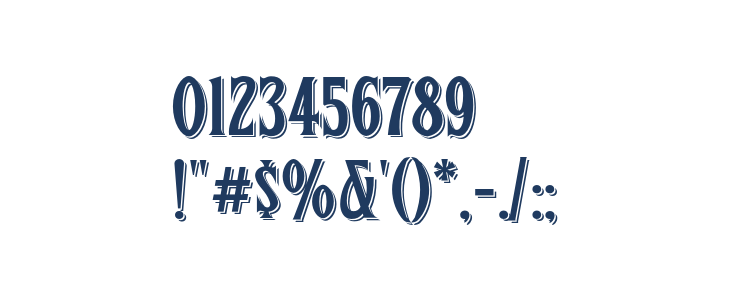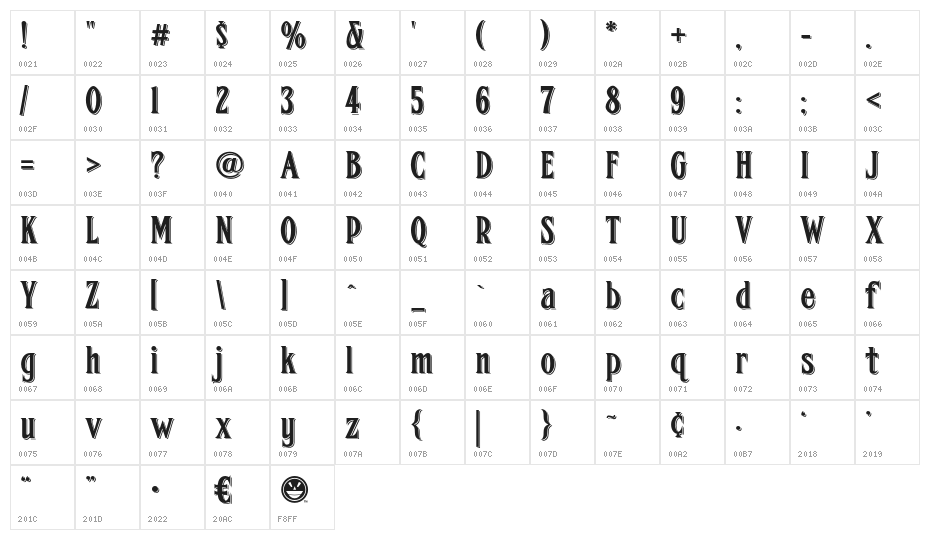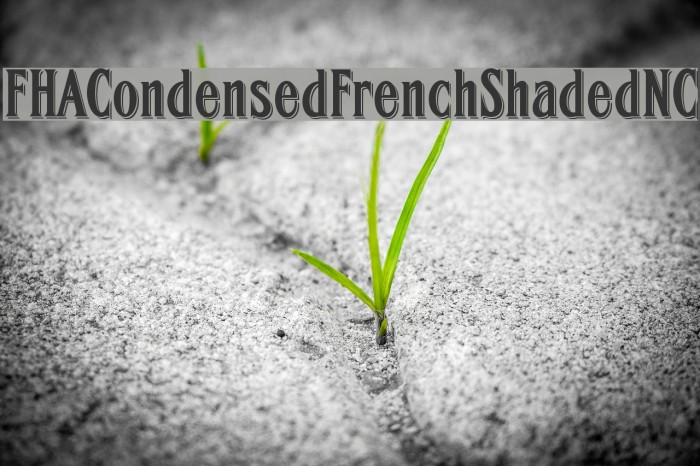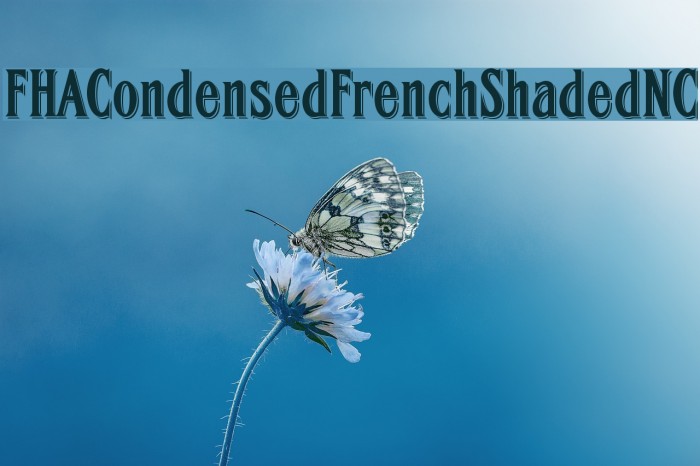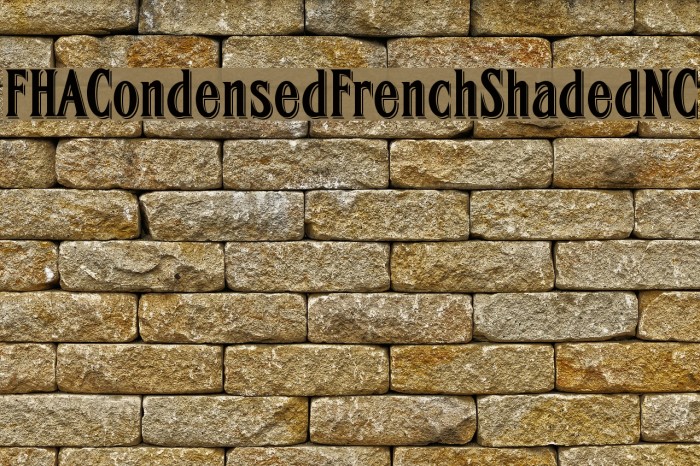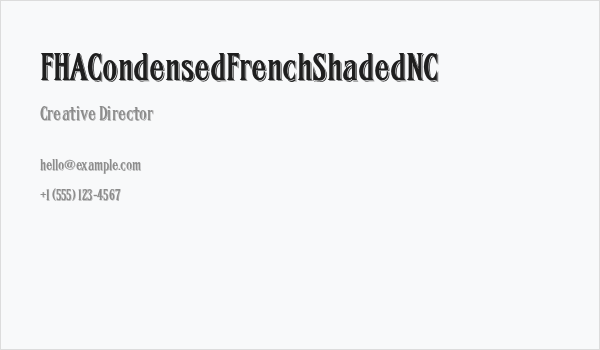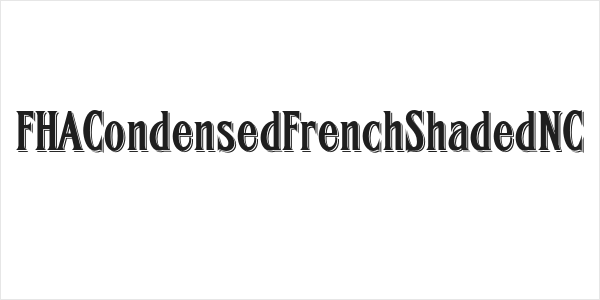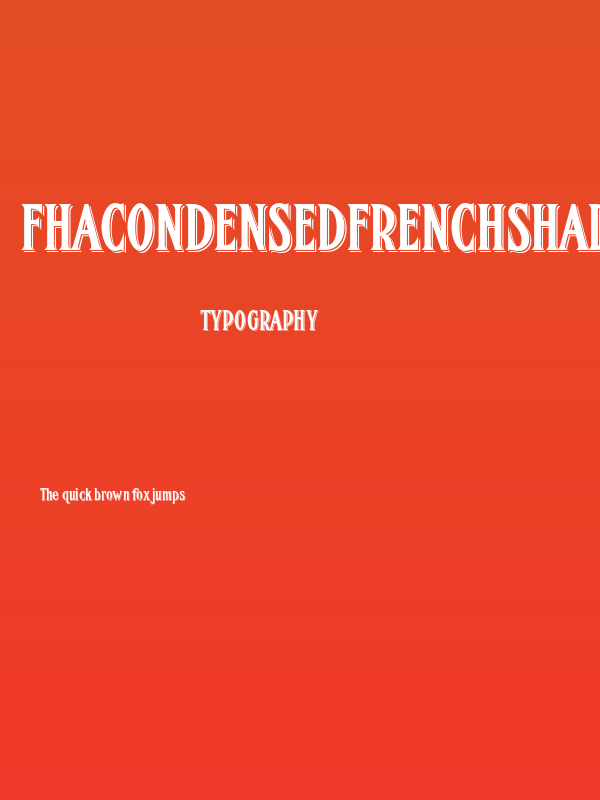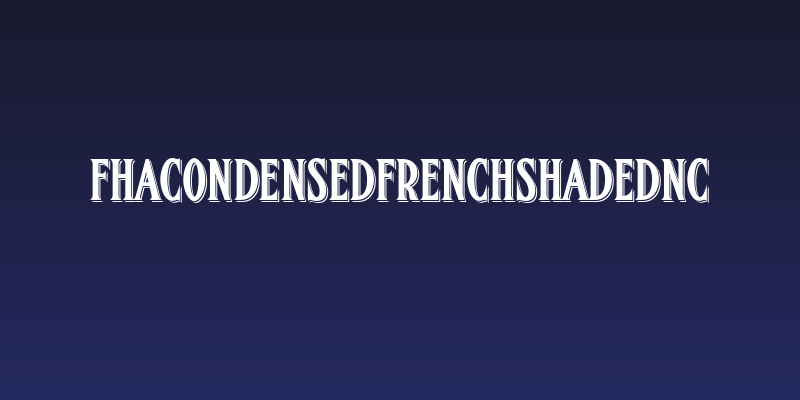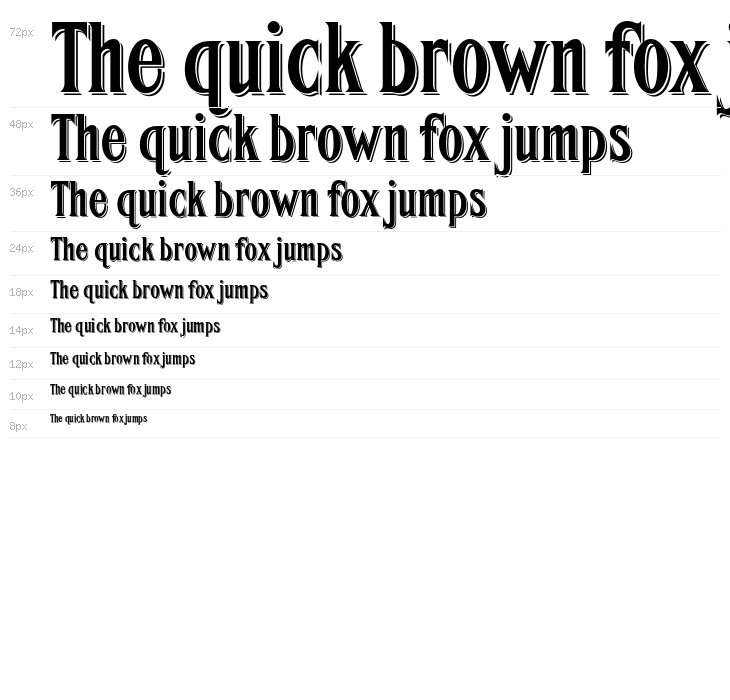
FHACondensedFrenchShadedNC Font
FHACondensedFrenchShadedNC Description
This font exhibits a bold and decorative style with a distinct shaded effect that adds depth and dimension to each character. The uppercase letters are tall and imposing, while the lowercase letters maintain a consistent style that complements the uppercase. The numerals are equally bold, ensuring they stand out in any design. The special characters are crafted with the same attention to detail, making them suitable for various creative applications. The overall appearance is both classic and eye-catching, ideal for projects that require a touch of elegance and flair.
| Proposed Projects | Ideal for posters, headlines, branding, and any design that requires a bold, decorative touch. |